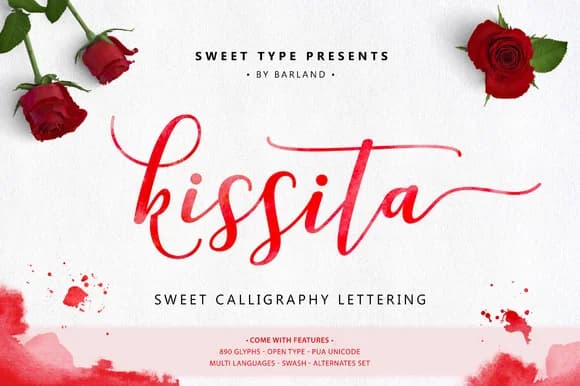
Kissita by barland is a contemporary handwritten script that infuses projects with authentic character and expressive personality. Drawing inspiration from natural pen-on-paper letterforms, this typeface delivers organic rhythm and fluid elegance while maintaining clean legibility across both large headlines and smaller body applications.
The font includes 14 stylistic alternates, allowing designers to strategically mix and match letterforms for layered compositions and distinctive visual customization. This flexibility opens doors for wedding invitation suites with intricate layering potential, delicate greeting card designs that need warmth, feminine brand identities seeking handmade appeal, and artisanal product labels that demand authenticity. The natural flow of each glyph also translates beautifully to social media graphics that require visual interest and hand-lettered branding materials.
Kissita Font is a script font that shines as a display or heading face. Pair it with a clean sans-serif or serif font for body text β the contrast creates a clear hierarchy while the two styles stay balanced and easy to read.
Kissita Font
by barland